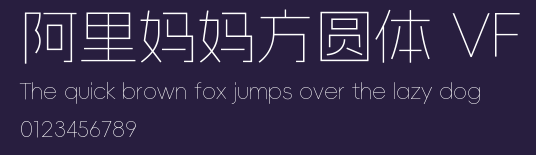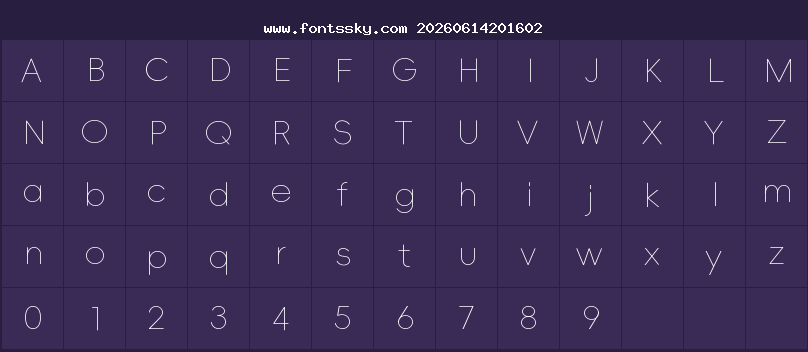
• Designer: 刘川、洪良奋、韩小明、陈养剑、龚巍、壹丝、李穆
• Manufacturer: Alibaba Design
About 阿里妈妈方圆体 VF.ttf
阿里妈妈方圆体 VF.ttf is a modern, elegant sans-serif font designed for ultimate readability and visual harmony. Perfect for branding, headlines, web design, and print materials.